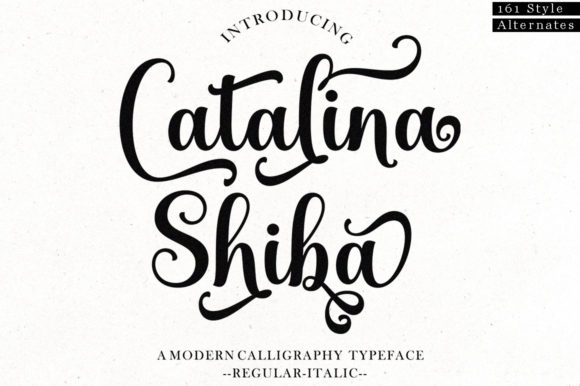
Step into the world of Catalina Shiba Font, a script font that captures the essence of elegance and creativity. Its delicate and beautifully balanced letters harmoniously dance on the page, leaving a trail of sophistication wherever they go.
Indulge in its incredibly versatile style, effortlessly adapting to your every design desire. Whether you're crafting captivating logos, heartfelt invitations, or whimsical posters, Catalina Shiba Font elevates your creations with its timeless charm. Let your imagination soar as you explore the boundless possibilities that await you with this remarkable font.
Envision your designs transformed into captivating works of art, captivating the hearts and minds of your audience. Catalina Shiba Font is your secret weapon to unlock a world of creative possibilities, turning your design dreams into a stunning reality.
With Catalina Shiba Font by your side, you'll discover a font that dances with grace and speaks volumes with its intricate details. Its PUA encoding grants you effortless access to a treasure trove of glyphs and swashes, empowering you to unleash your creativity like never before.
Don't settle for ordinary fonts that fade into the background. Embrace the extraordinary with Catalina Shiba Font, a font that commands attention and leaves a lasting impression. Its unique style and versatility will captivate your audience, captivating them with its undeniable charm.
Elevate your designs to new heights with Catalina Shiba Font. Its delicate strokes and elegant curves will transform your creative vision into a breathtaking masterpiece. Experience the joy of creating designs that resonate with your audience, leaving them spellbound by your artistry.
Immerse yourself in the captivating world of Catalina Shiba Font. Let its beauty inspire you, its versatility empower you, and its elegance leave an everlasting mark on your creative journey. Unleash the magic of your imagination and witness the transformative power of a font that truly understands the language of creativity.